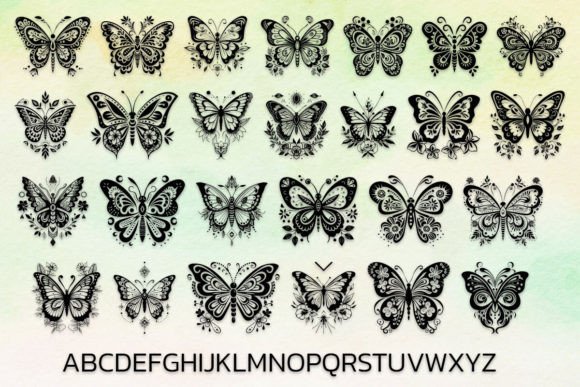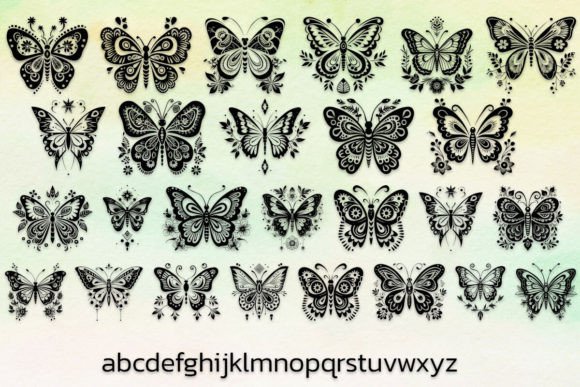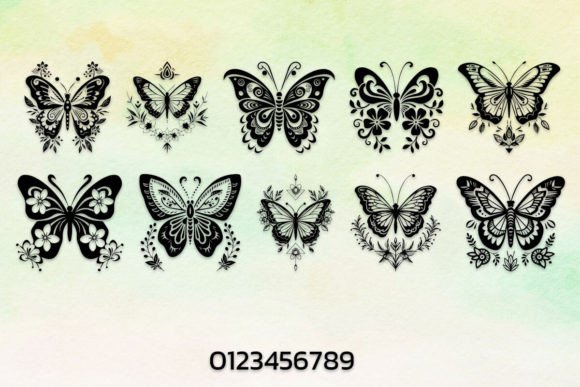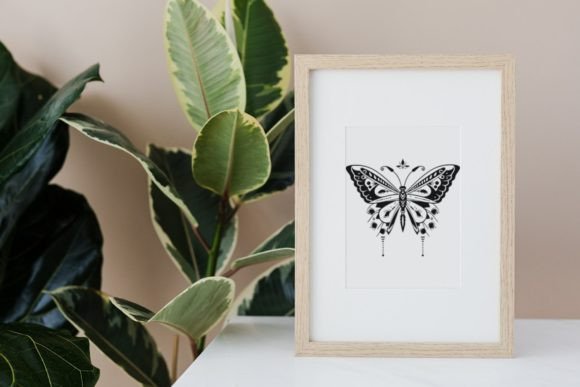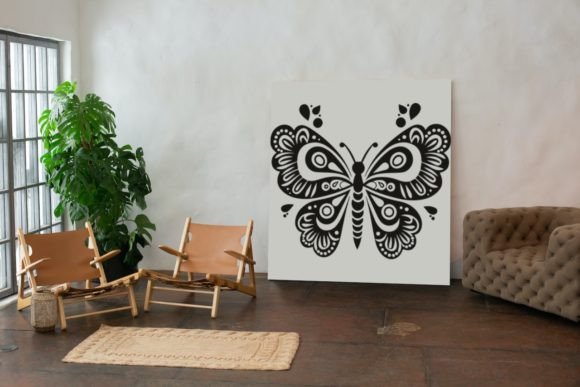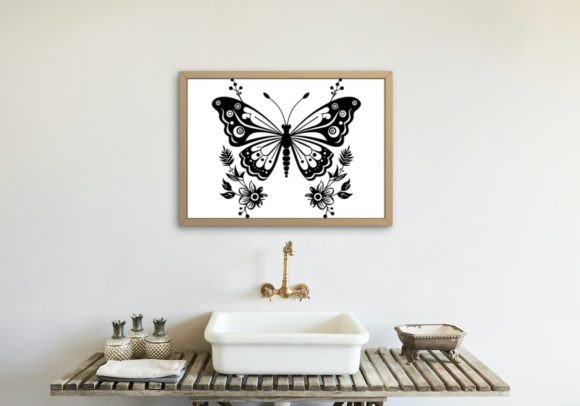
Introduction to Elegant Butterfly Font
Have you ever been working on a creative project and wished you had the perfect design element to take it to the next level? For designers, finding the right resource can be a game-changer. That’s why we’re excited to introduce the Elegant Butterfly Font, a beautiful addition to any design project.
This stunning font features 62 captivating butterfly-themed symbols, including 26 uppercase and 26 lowercase letters, along with 10 numbers (0-9). With its elegant and versatile design, it’s the perfect way to add a touch of nature-inspired charm to your work. Whether you’re creating a free download or a high-quality design resource, the Elegant Butterfly Font is sure to elevate your project and leave a lasting impression.
One of the standout features of this font is its transparent background, making it easy to combine with other design elements and create a seamless look. Whether you’re working on a personal or professional project, the Elegant Butterfly Font is a valuable addition to your design arsenal.
Key Features of Elegant Butterfly Font
- Unique, hand-drawn design with intricate details and elegant curves, perfect for creative projects that require a touch of sophistication.
- Features a transparent background, allowing for seamless integration into various design elements and backgrounds.
- Perfect for use in creative projects that require a delicate and refined touch, such as invitations, greeting cards, and wedding stationery.
- Unique characteristics include a beautiful, swirling pattern and subtle texture, adding depth and visual interest to any design.
Honest Review: Elegant Butterfly Font
I recently had the chance to work with the Elegant Butterfly Font, and I must say it’s a lovely addition to any design project. This font is perfect for creating a whimsical and dreamy atmosphere, making it ideal for creative projects like invitations, posters, and even digital designs.
Here are some pros and cons of using the Elegant Butterfly Font:
- ✨ Beautiful and elegant design
- ✨ Perfect for creative projects, especially those with a whimsical or dreamy theme
- ✨ Transparent background option
- ⚠️ Limited font styles available
- ⚠️ May not be suitable for formal or professional designs
Overall, I’m impressed with the Elegant Butterfly Font. It’s a great resource for designers looking to add a touch of elegance and whimsy to their projects. While it may have some limitations, its high quality and free download make it a worthwhile addition to any design library.